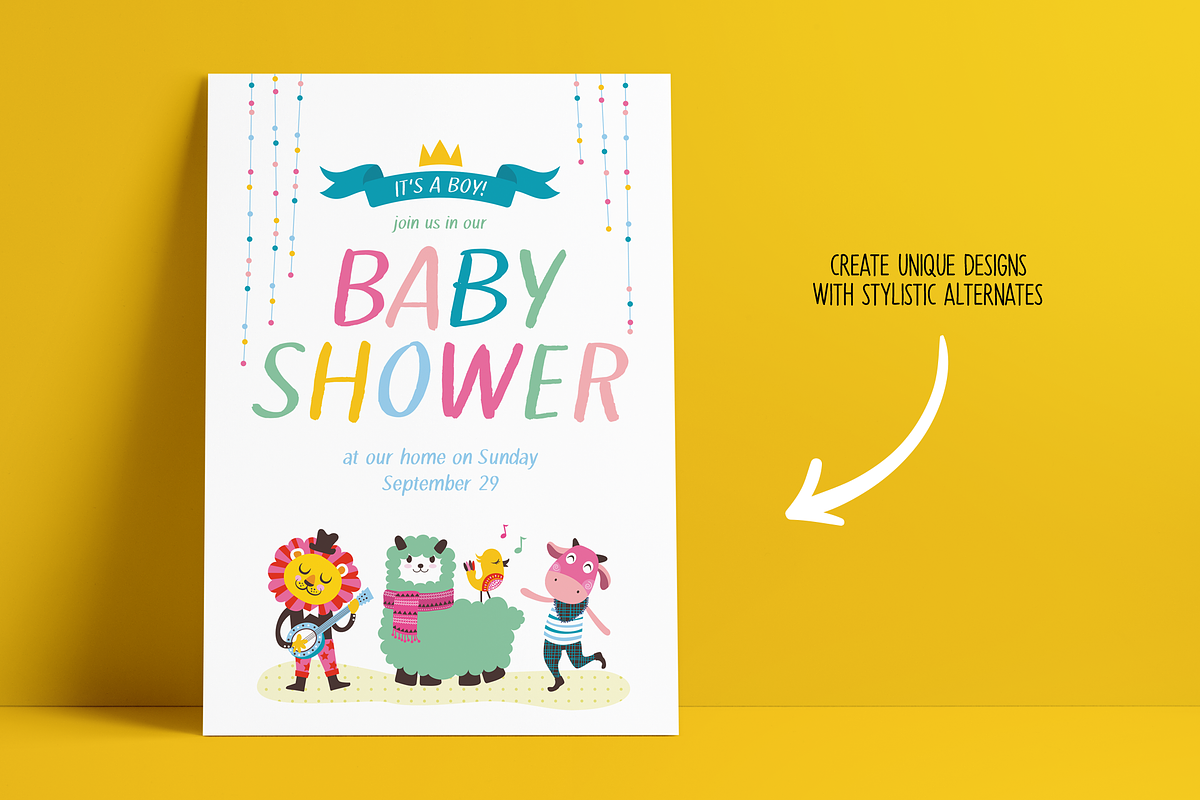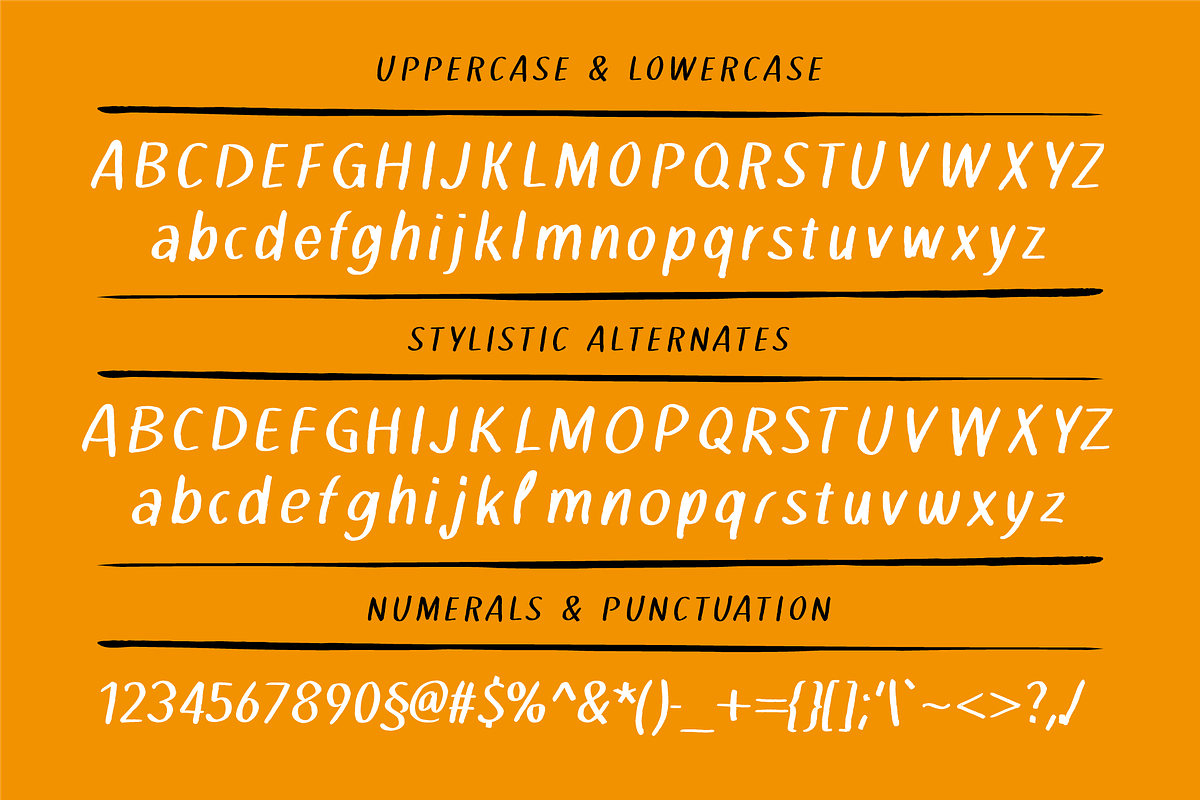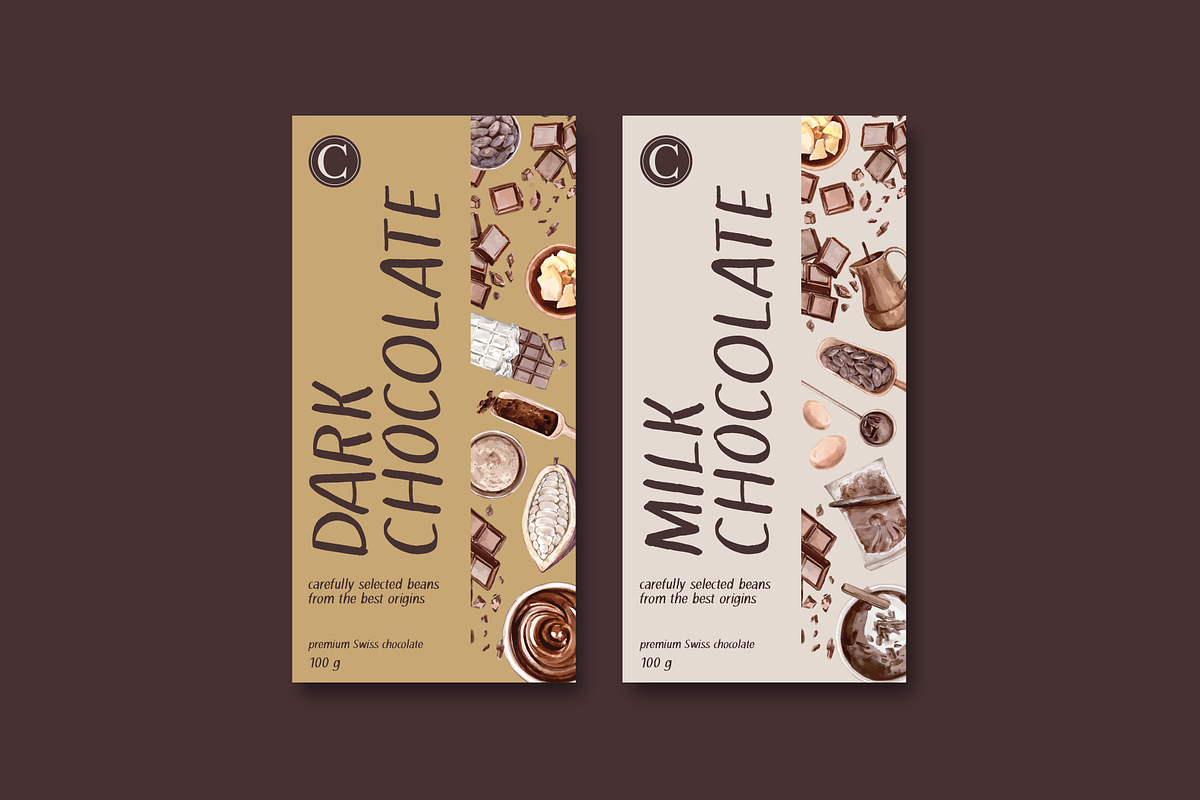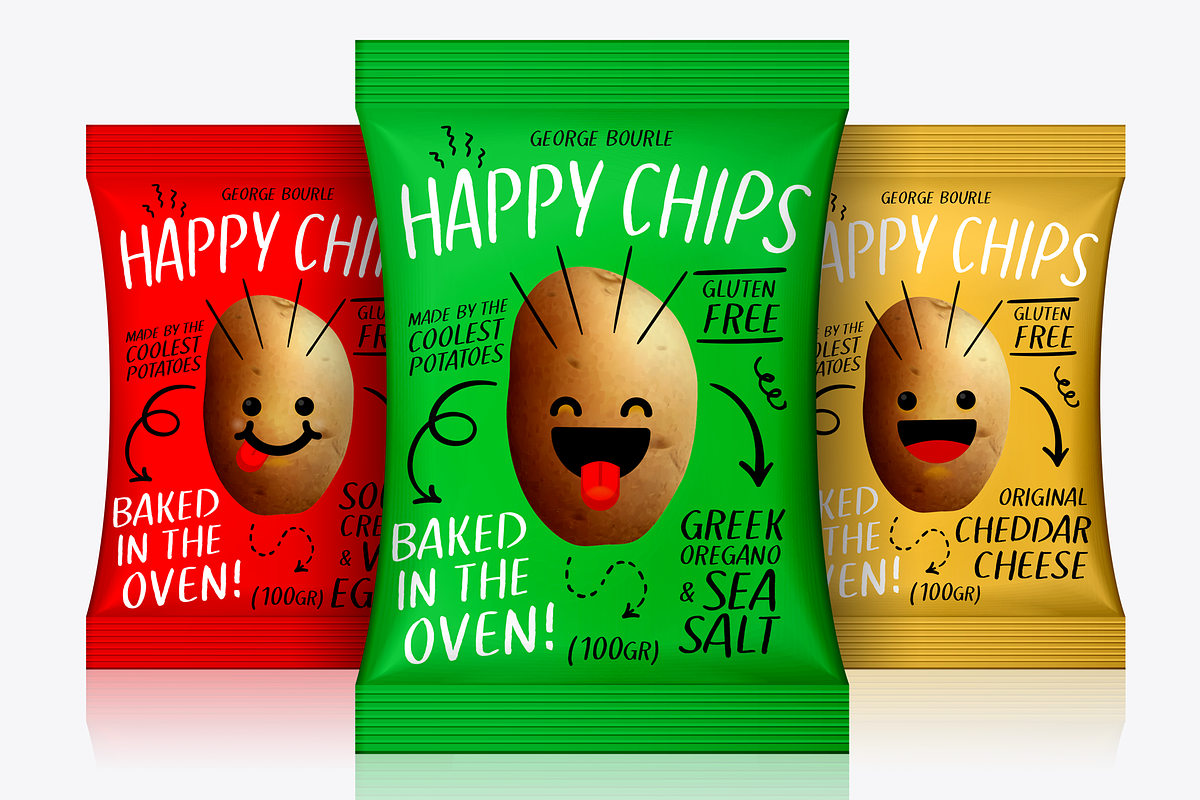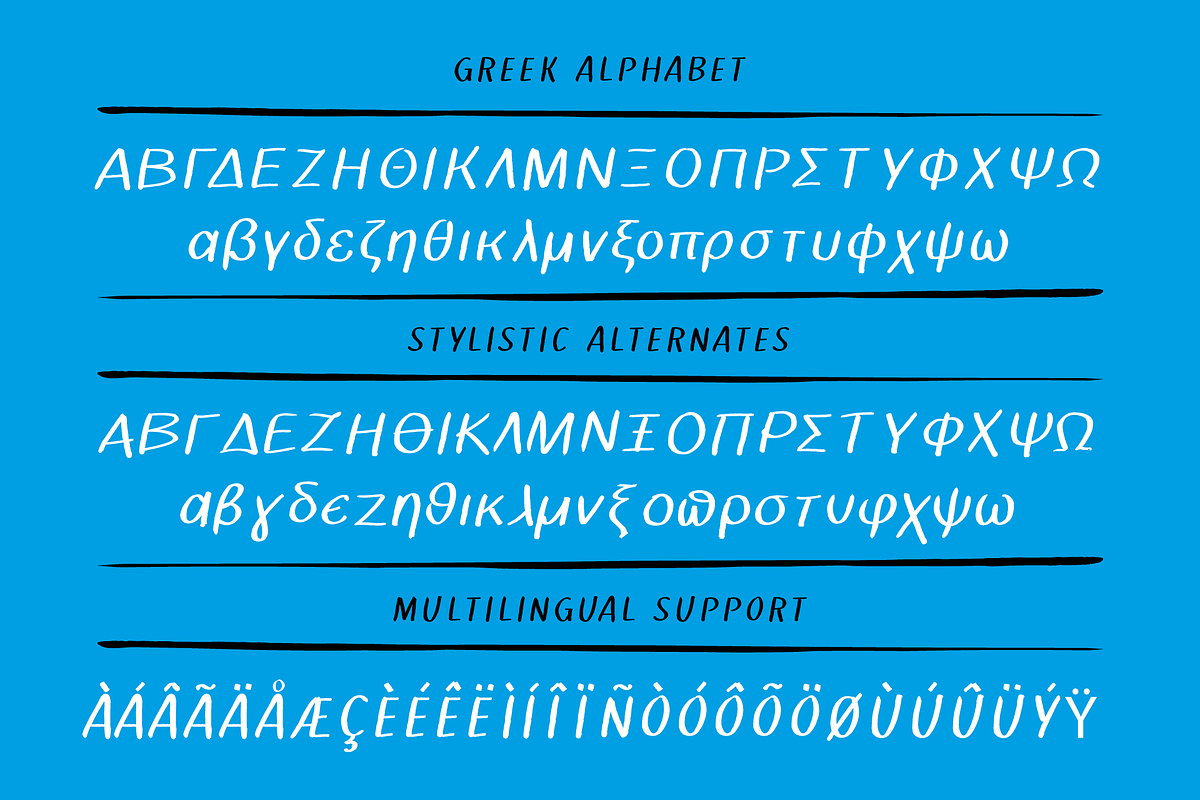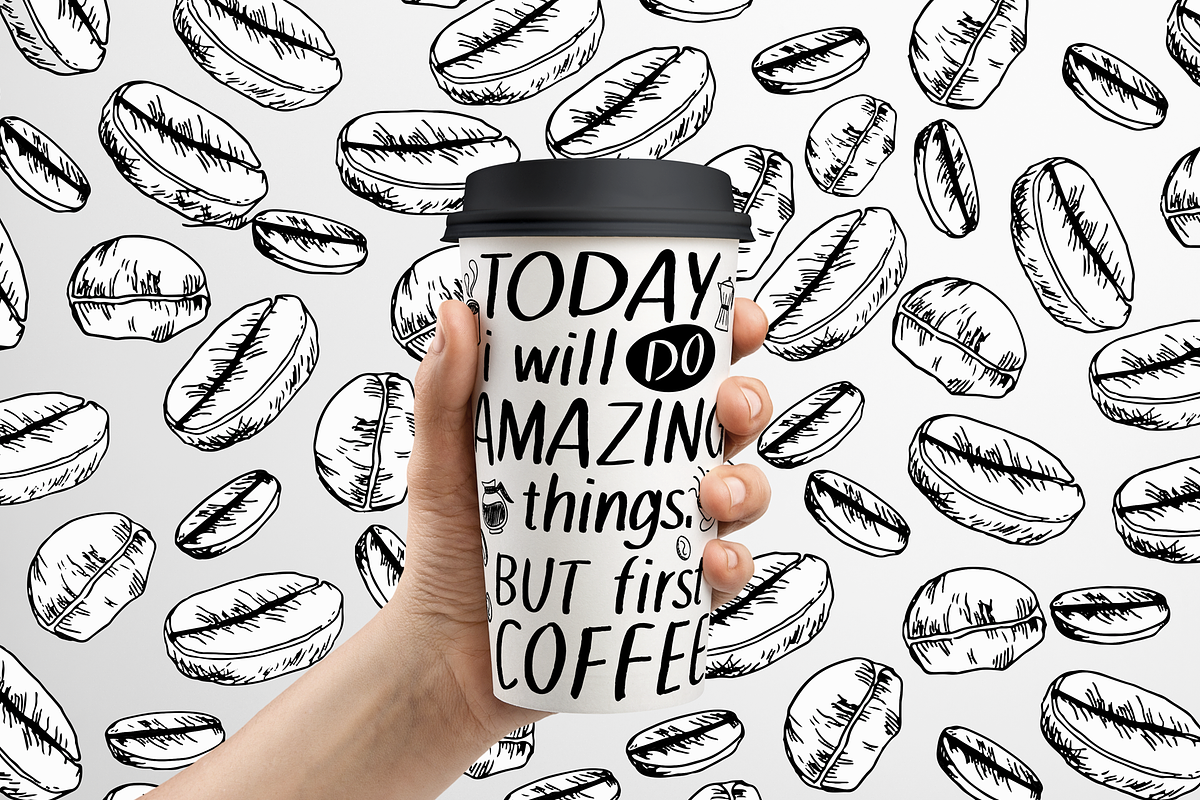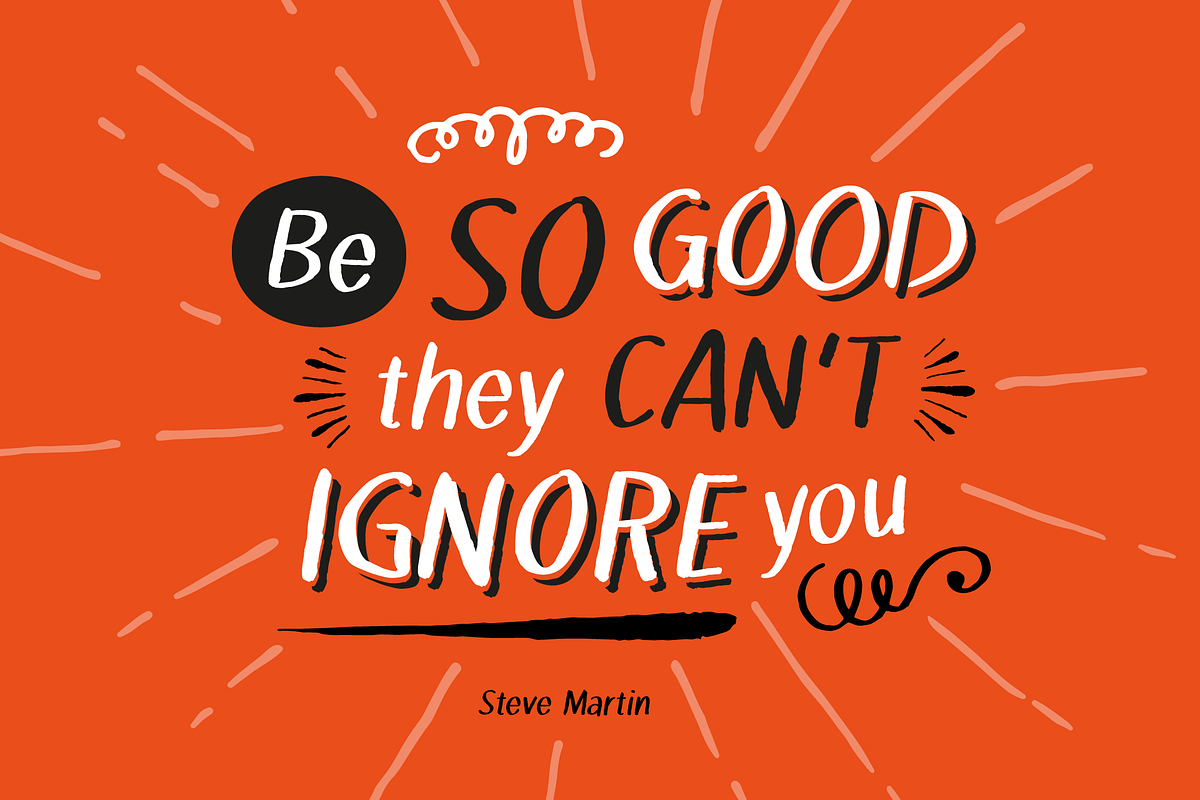
Theologos handmade brush font
Introducing Theologos, a hand drawn font, designed to make your designs unique and cool.
Use it for your packaging design project, design fun party invitations, quotes and many more.
With stylistic alternates you can free to create more authentic compositions.
Theologos font supports international languages.
- The Greek alphabet is included with an extra pair of stylistic alternates.
Theologos handmade brush font by George Bourle fits naturally into Branding, posters, packaging, typography.